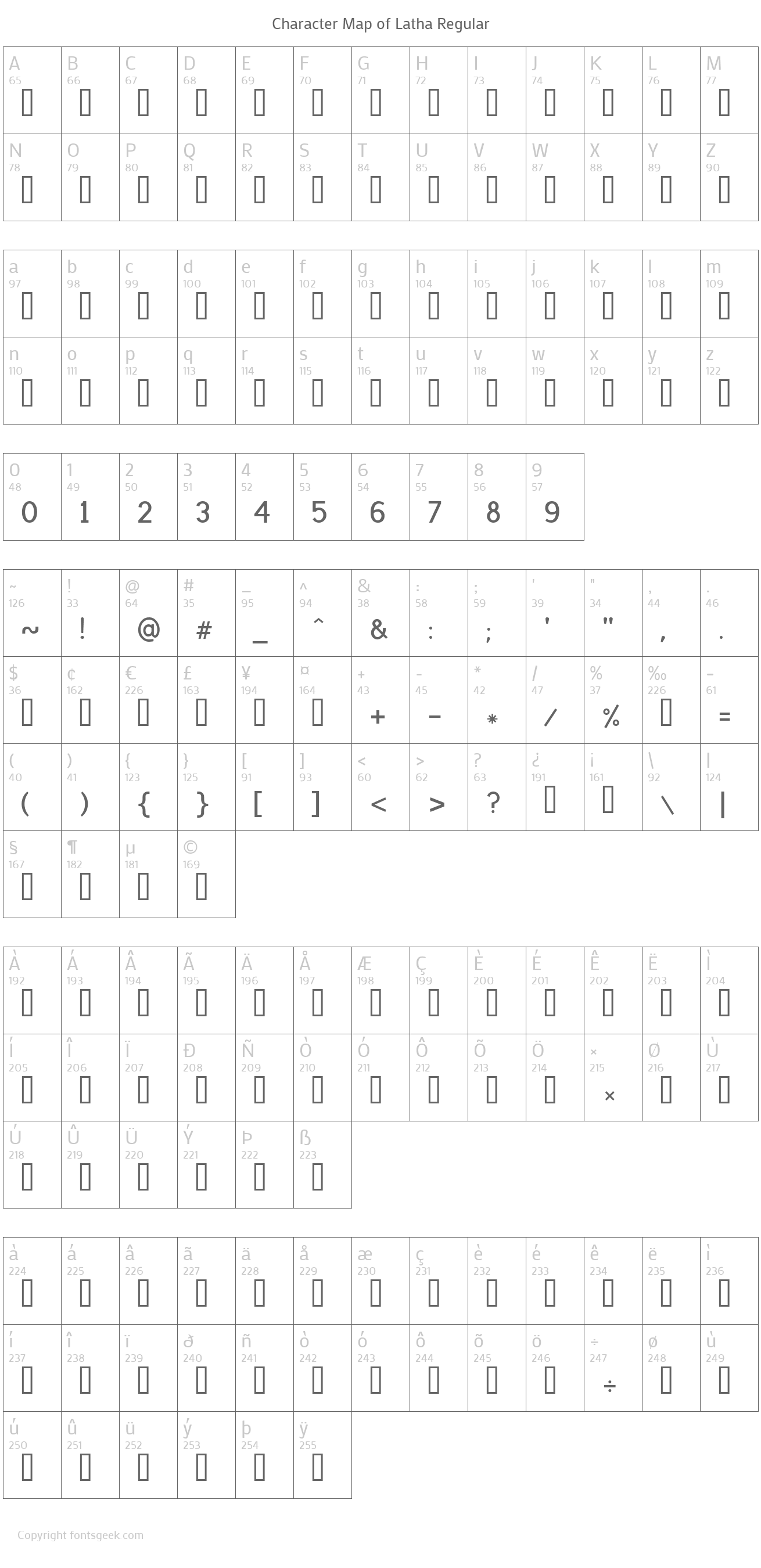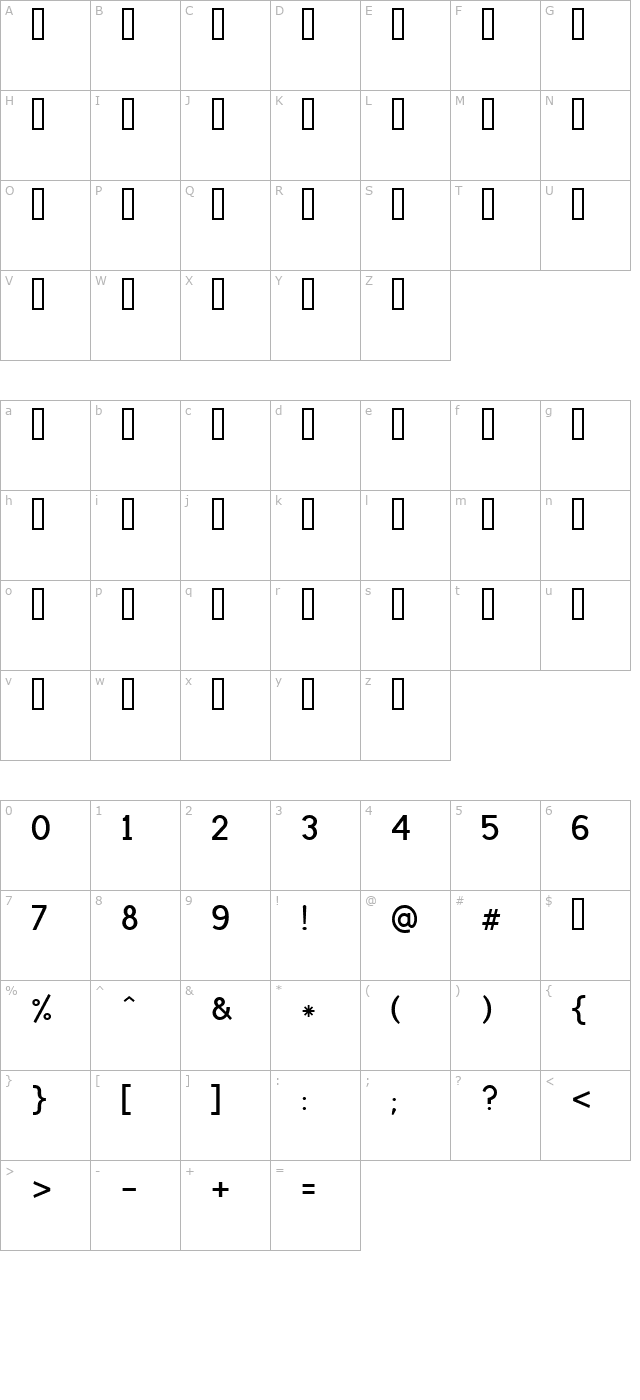
Web latha is a font for the indic script tamil. You can browse alternatives here. Web latha font features this extraordinary font has possessed truetype file codecs, with greater than a hundred and sixty designated characters held in the single general type.